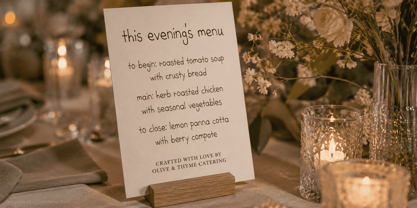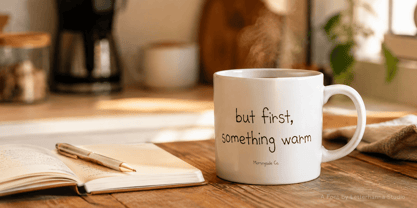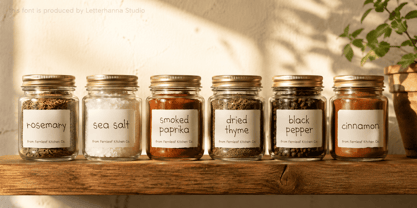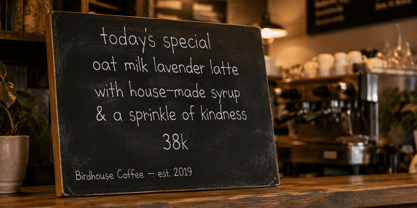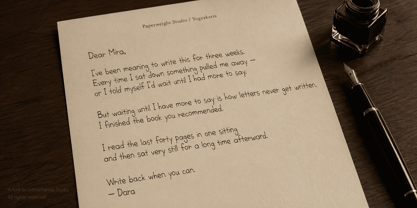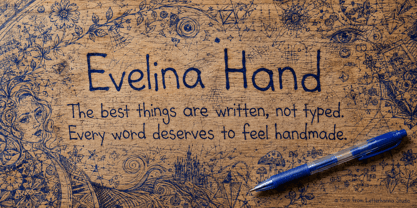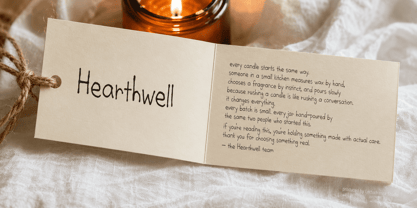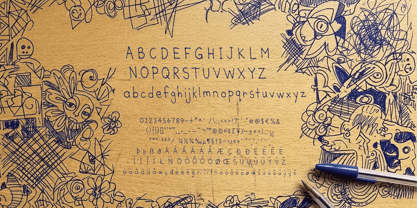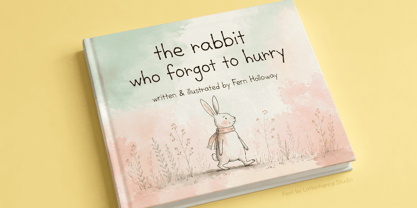
Evelina Hand
by Letterhanna Studio
The Evelina Hand Font Family was designed by Rinaldo Hasibuan and published by Letterhanna Studio. Evelina Hand contains 1 styles. More about this family
What if your font felt like a handwritten note — but still worked everywhere?
Most handwritten fonts fall into one of two traps: they're either too polished (losing the human touch entirely) or too messy (impossible to read at small sizes). Evelina Hand lives right in the middle — and that's exactly where the magic happens.
Evelina Hand is a handwritten sans-serif typeface born from the simple act of writing. Not calligraphy. Not brush lettering. Just a pen, a steady hand, and a designer who understood that imperfection, when intentional, is the most powerful design choice you can make.
The letterforms are upright and open, with thin strokes and gentle irregularities that give every word a quiet, human warmth. The uppercase is confident and structured. The lowercase is casual, rounded, and completely disarming. Together they form a voice that's easy to trust — the kind of font you'd find on a handmade card, a journal cover, a café chalkboard, or a brand that wants to feel real in a world full of sterile perfection.
What sets Evelina Hand apart goes deeper than aesthetics. The font includes two complete sets of uppercase and two complete sets of lowercase letters — and they switch automatically using built-in ligature features. That means no two identical letters ever appear side by side. Every word flows with the natural variation real handwriting has — the subtle difference between the way you write the first "e" and the second one. No repetition. No mechanical feel. Just authentic, living text.
Evelina Hand was designed for creators who want their work to feel personal. For brands that value authenticity over aesthetics. For designers who are tired of fonts that look like fonts.